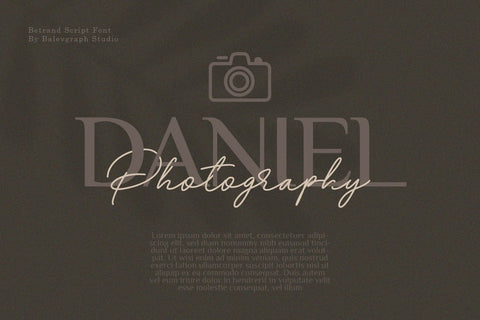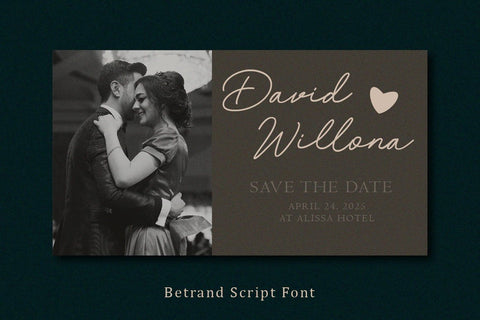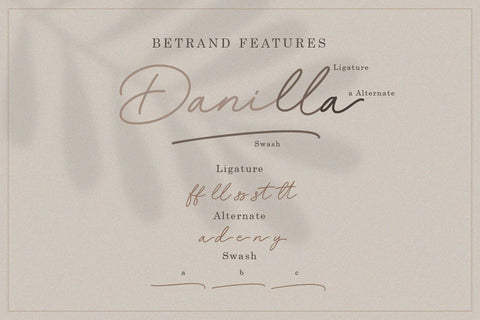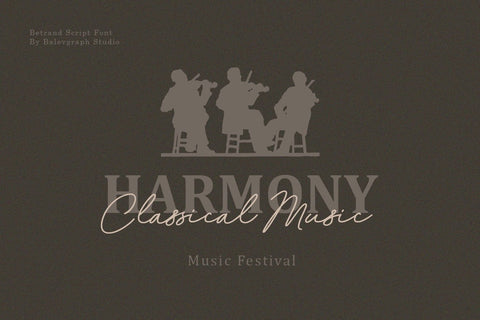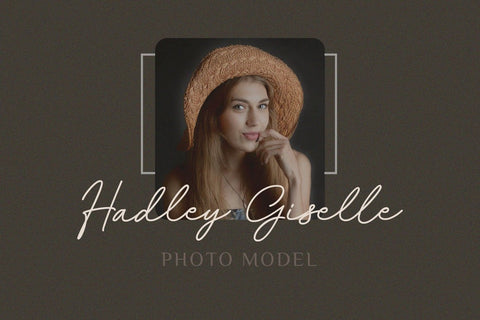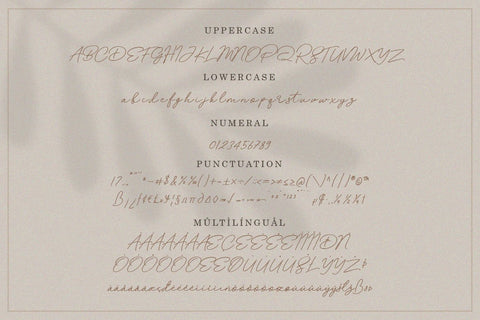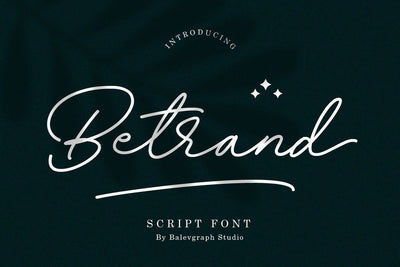
Betrand - Script Font
Betrand is a thin lettered and graceful script font. Fall for its ravishing style and use it to create gorgeous wedding invitations, beautiful stationary art, eye-catching social media posts, and much more!
- Uppercase, Lowercase, Numerals & Punctuations
- Ligature, Alternate & Swashes
- Multilingual support